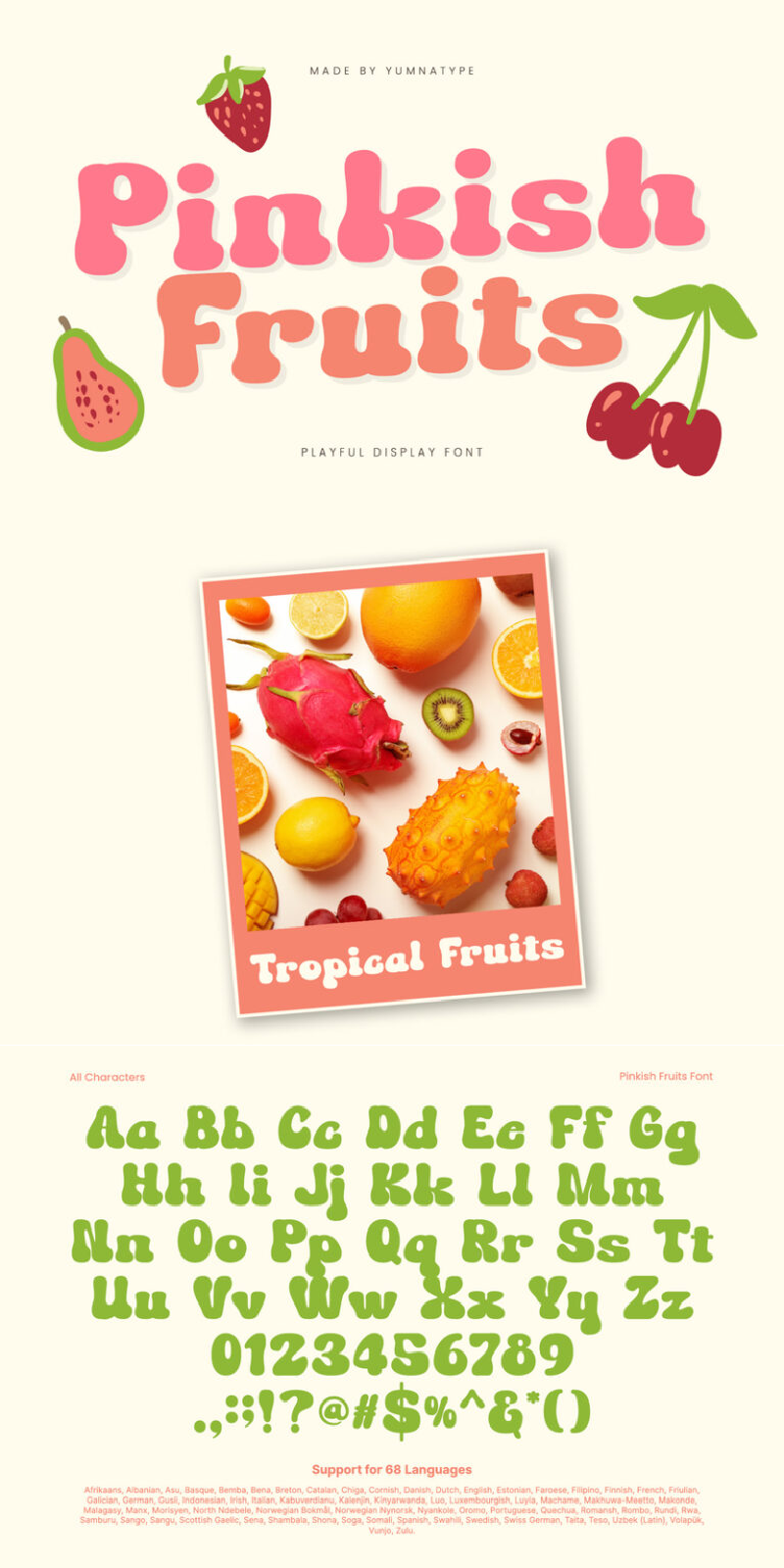
Pinkish Fruits Font
About Pinkish Fruits
Pinkish Fruits is a delightful display font that radiates a playful style with its very thick weight and low contrast. The font is characterized by rounded shapes, giving it a soft and approachable appearance. Its bold and rounded characters ensure your message is both impactful and friendly, making it an excellent choice for projects that aim to captivate and engage with a touch of whimsy. In addition, enjoy the features here.
Pinkish Fruits fits in headlines, logos, posters, flyers, branding materials, print media, editorial layouts, and many more designs. Find out more ways to use this font by taking a look at the font preview.